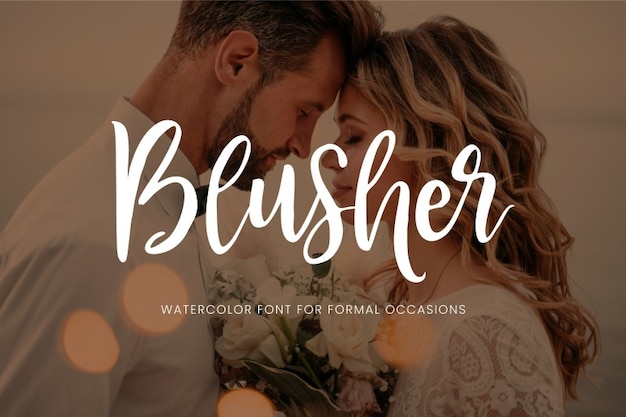
Blusher Font
Are you looking for a calligraphy typeface? In this case, the Blusher font is the one! Its cozy and elegant lines will perfectly suit to your projects, especially the Valentine's Day ones. There is no better way to enhance your creations than using this sweet font. Download it now!